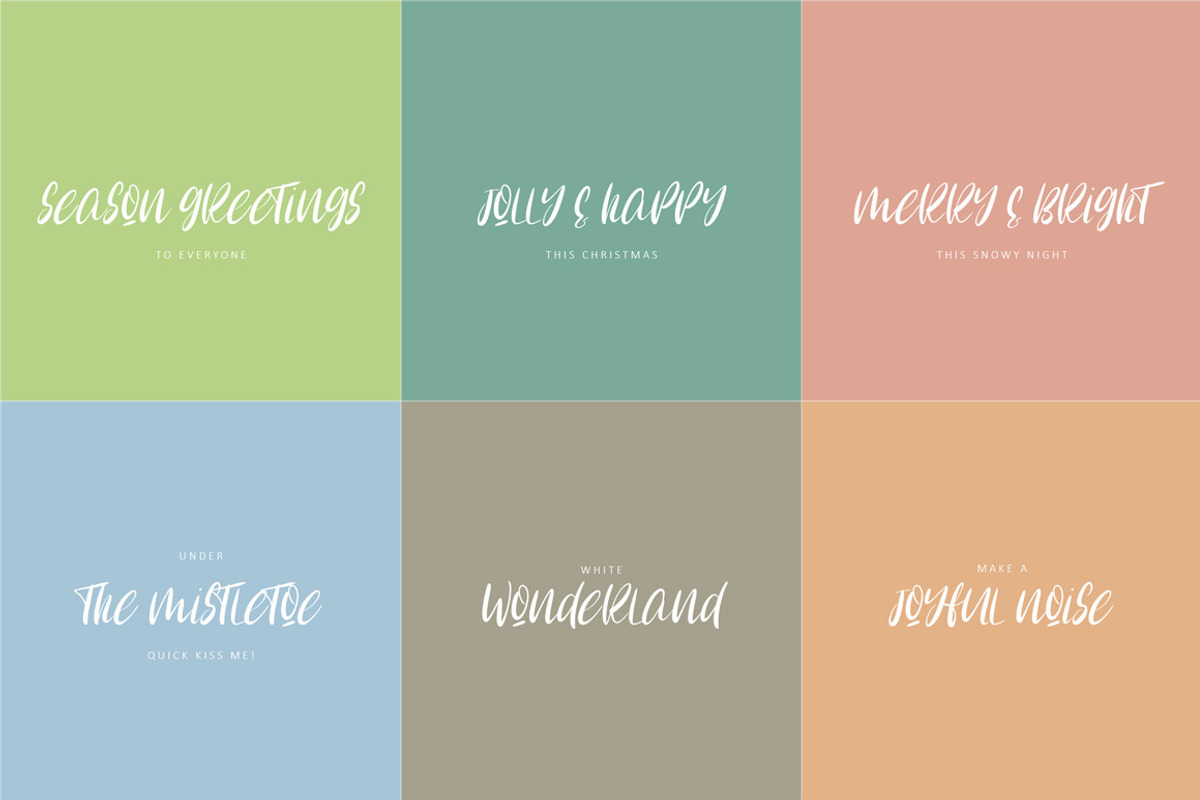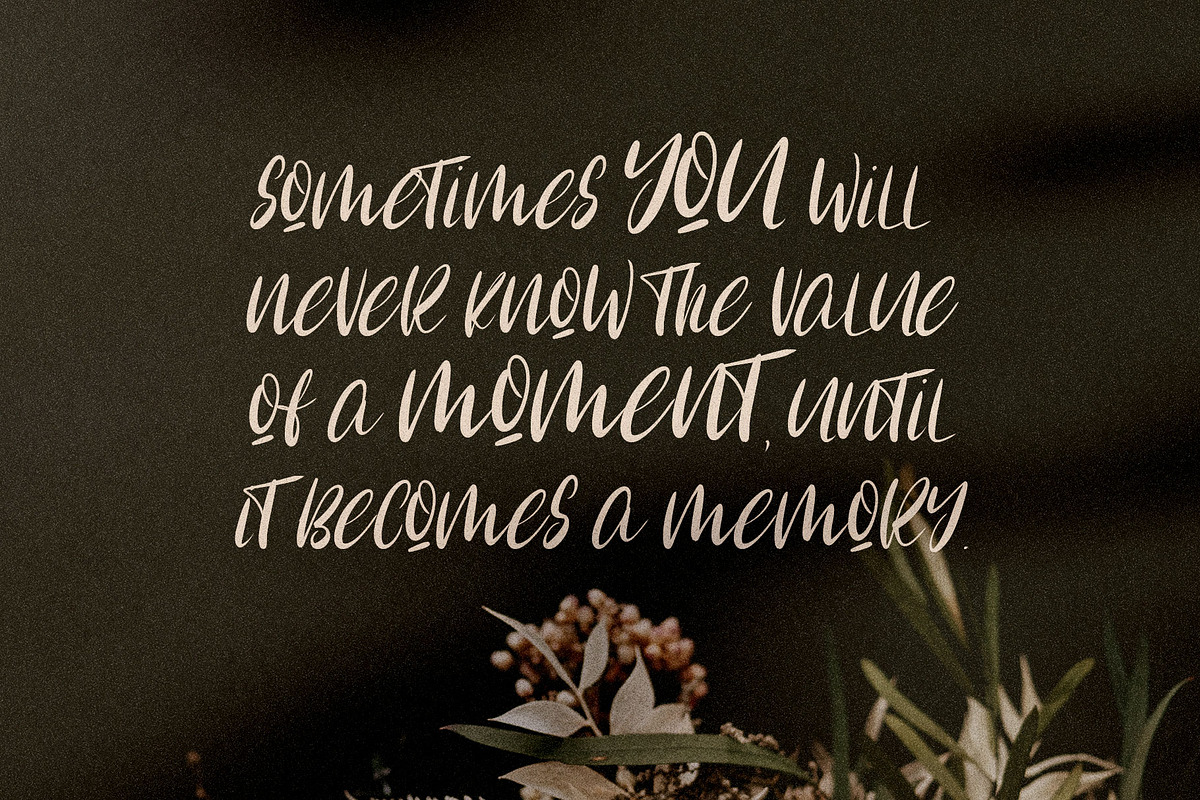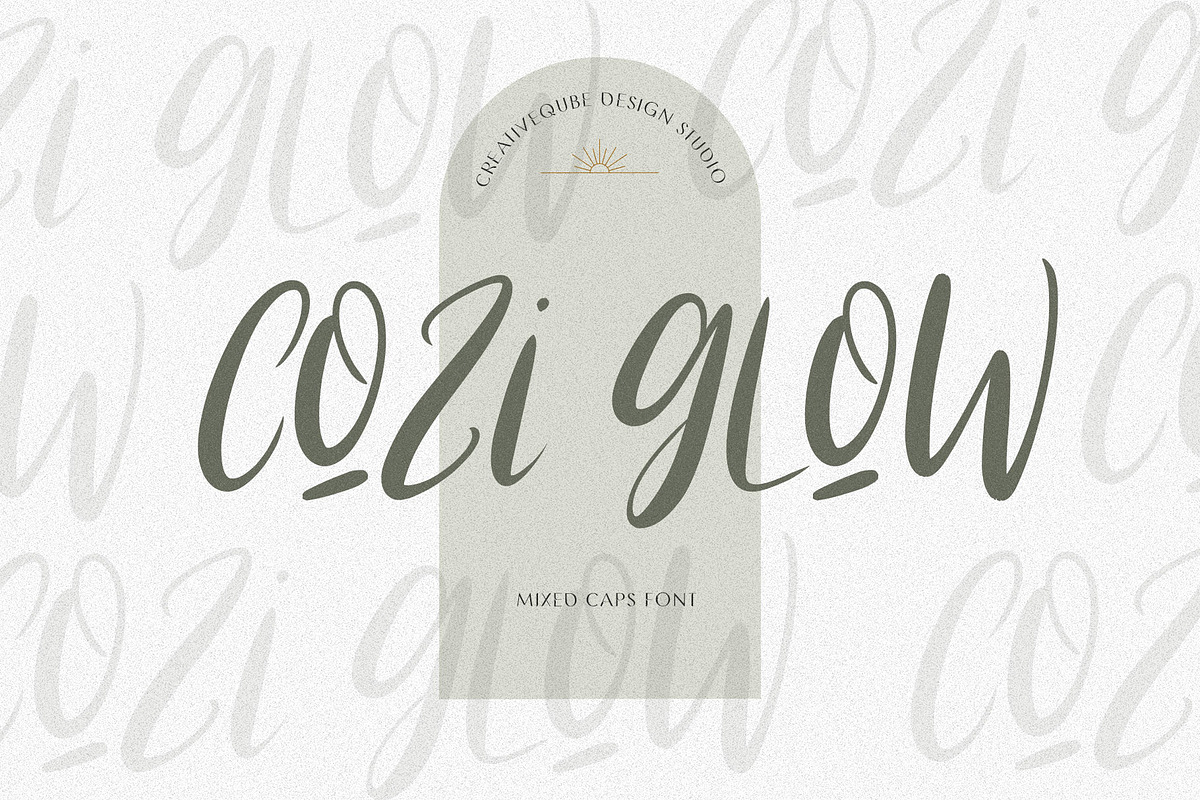
Cozi Glow Font
Introducing Cozi Glow. A hand drawn display font.
Why Cozi Glow Font is worth a look
Cozi Glow Font by Creativeqube Design fits naturally into Branding, posters, packaging, typography.